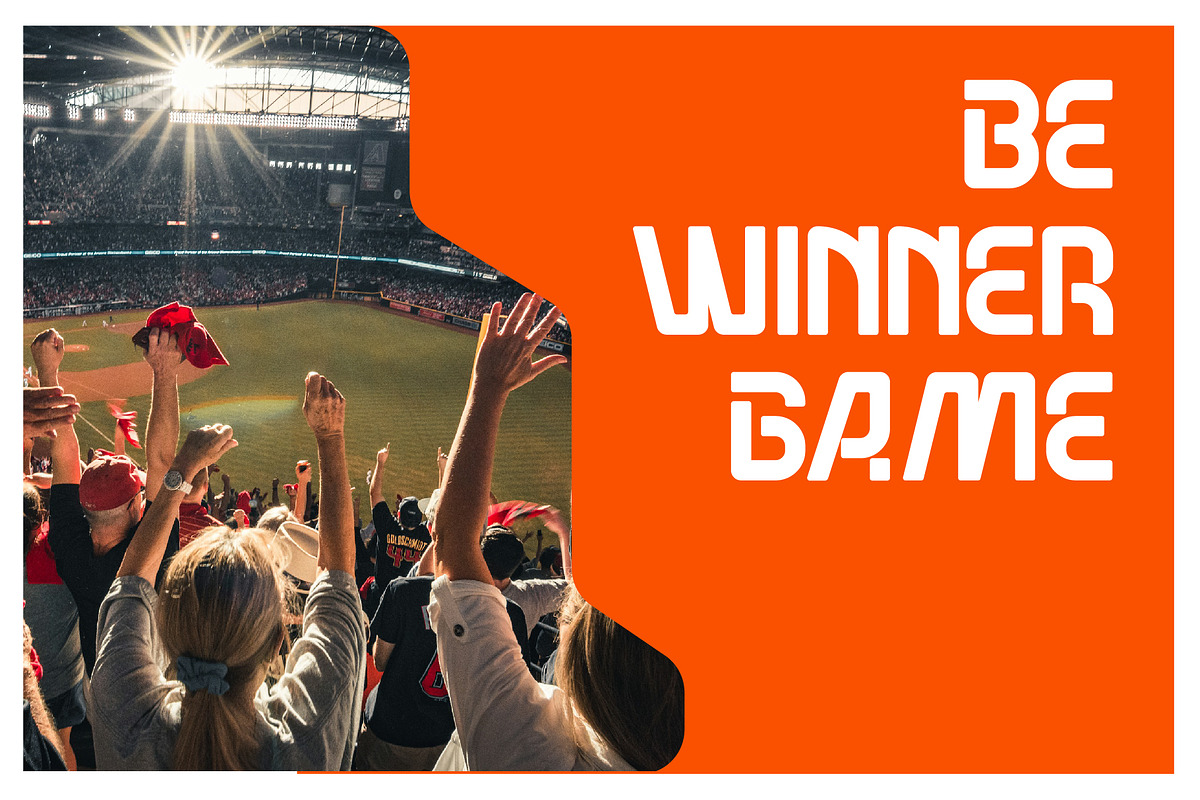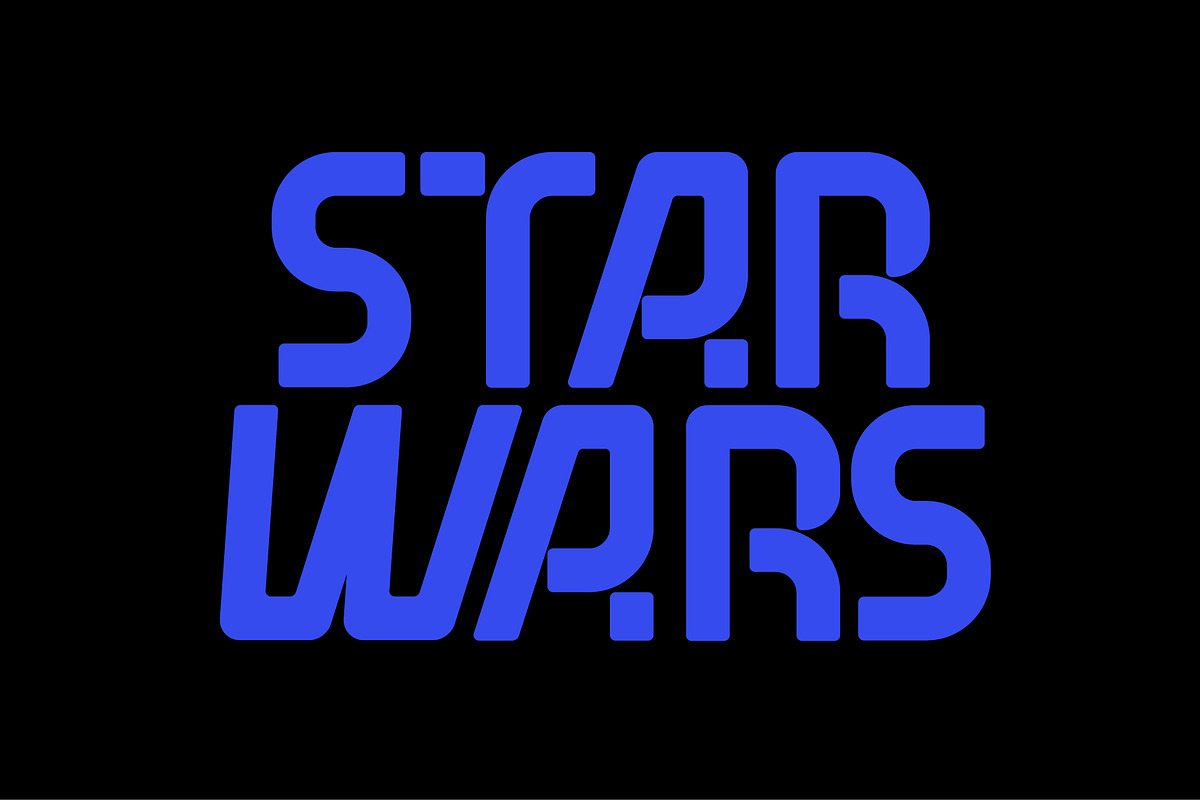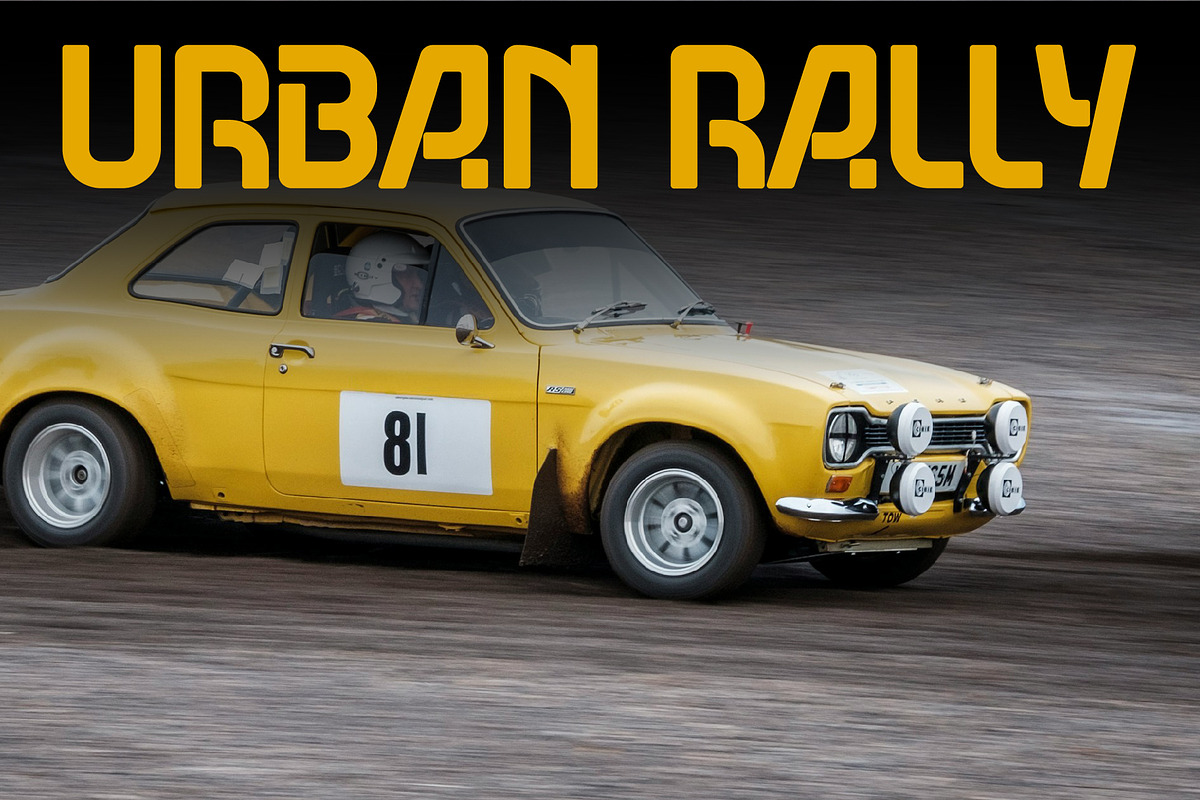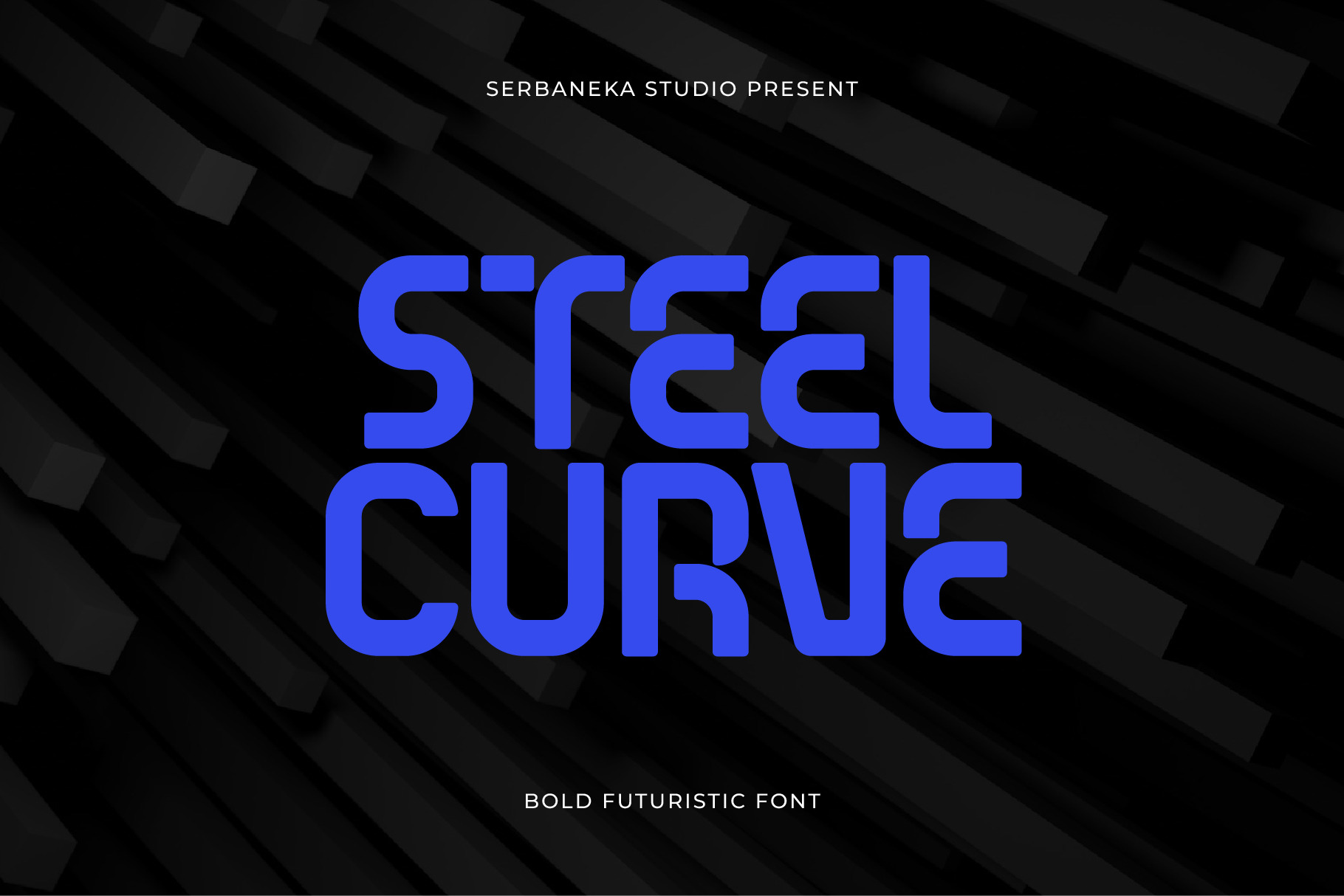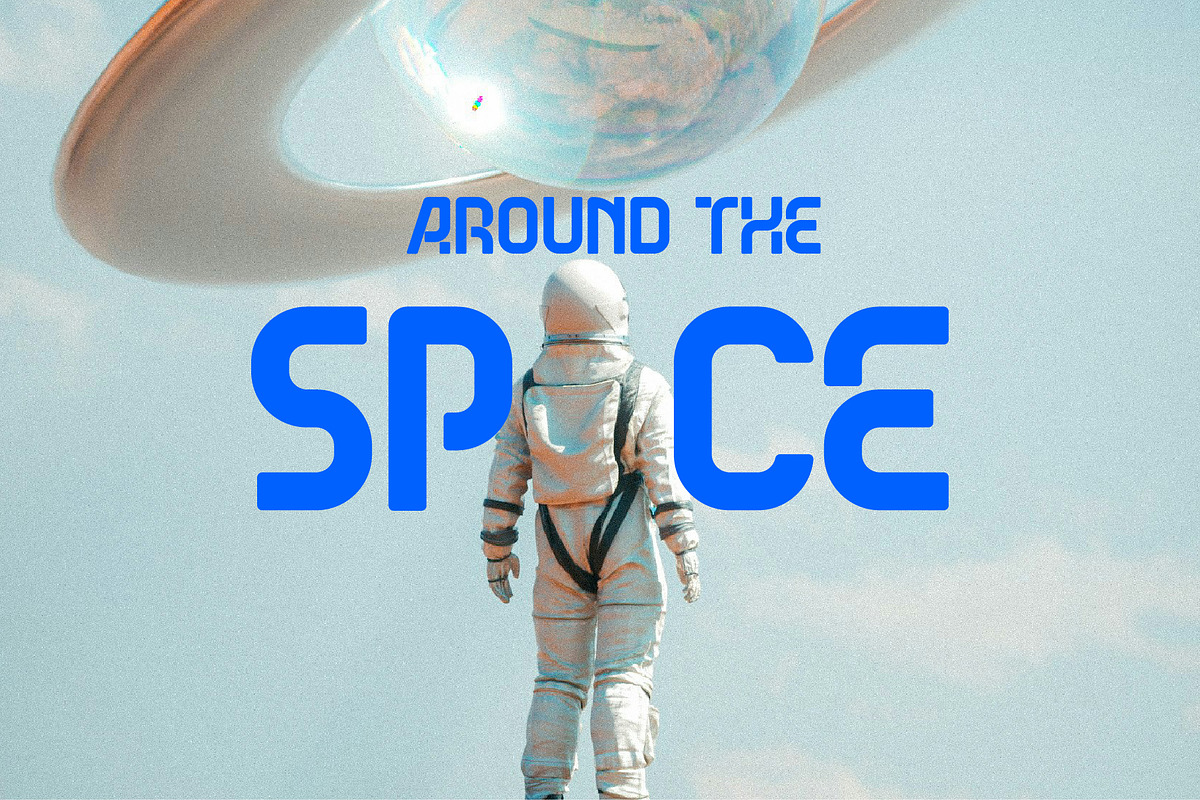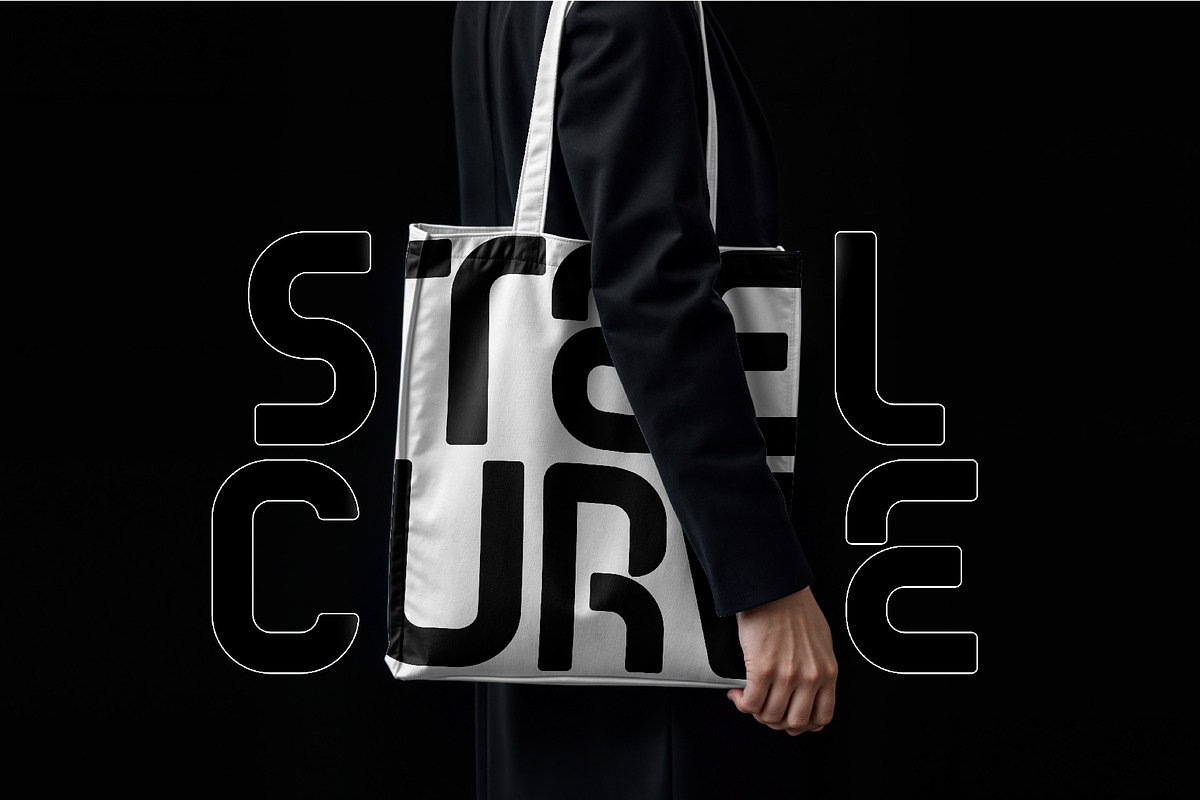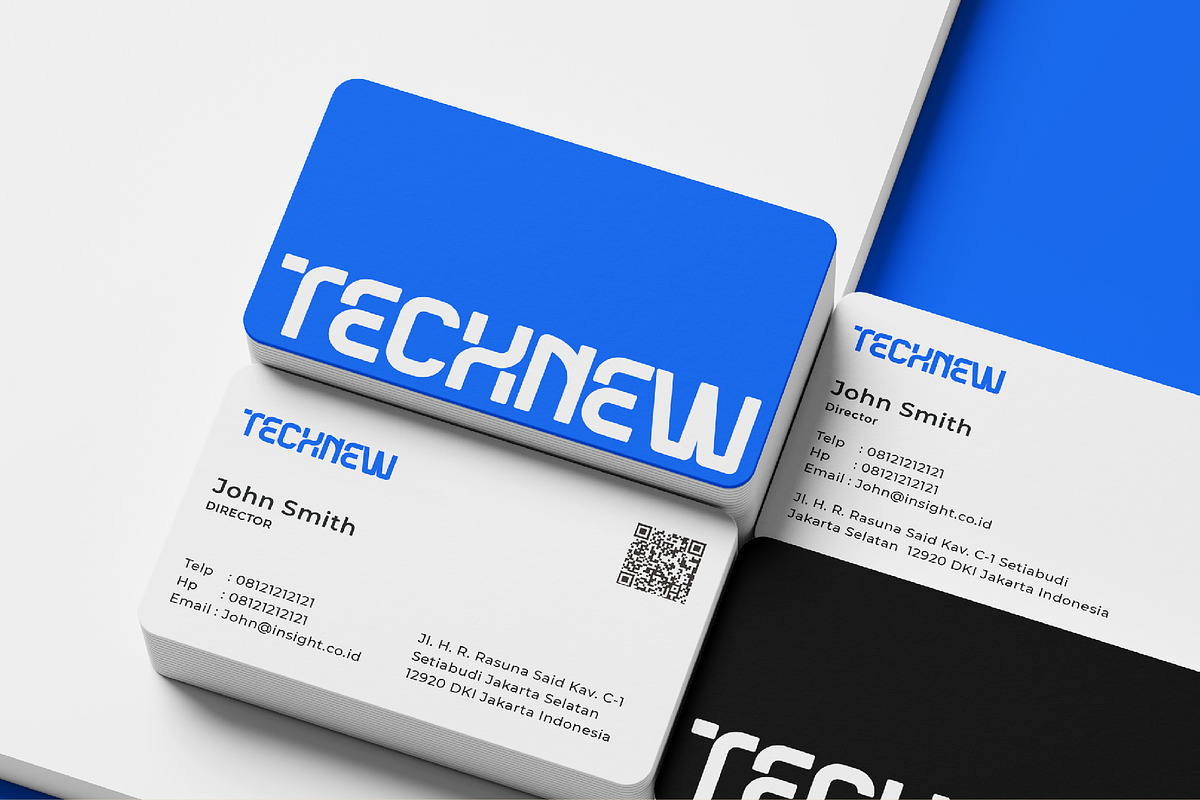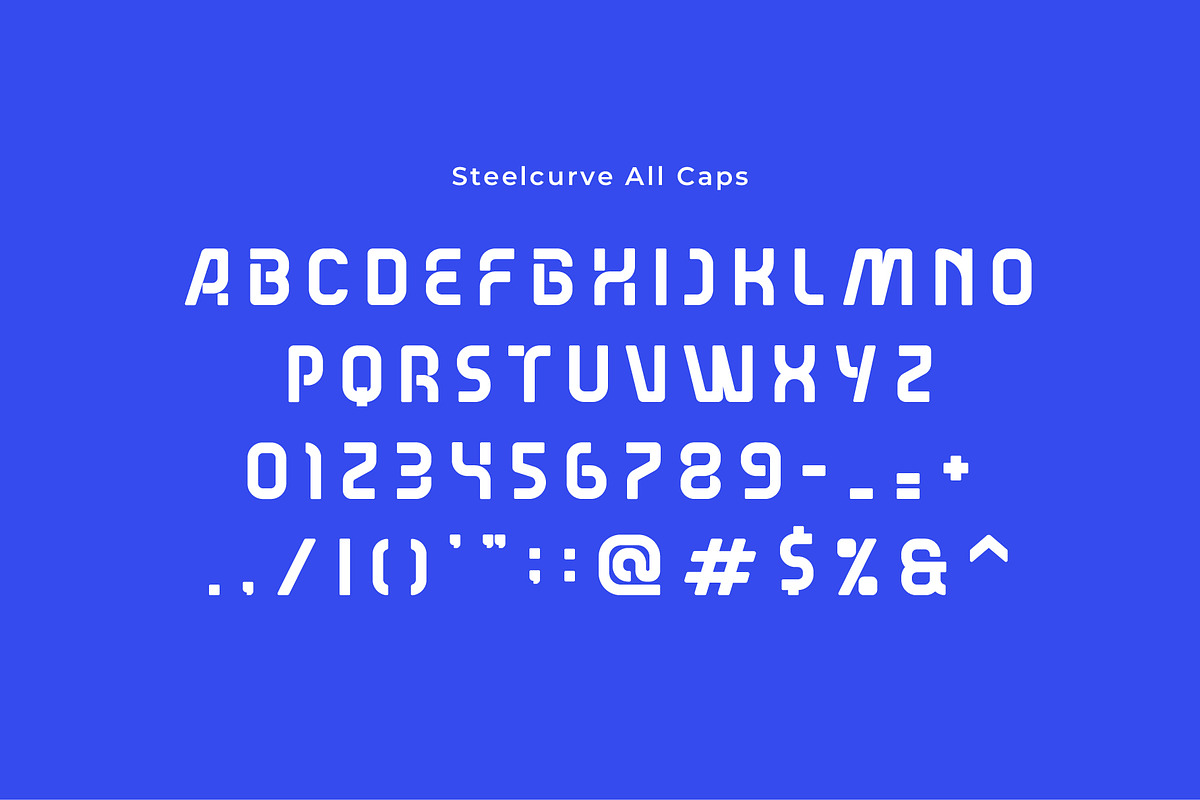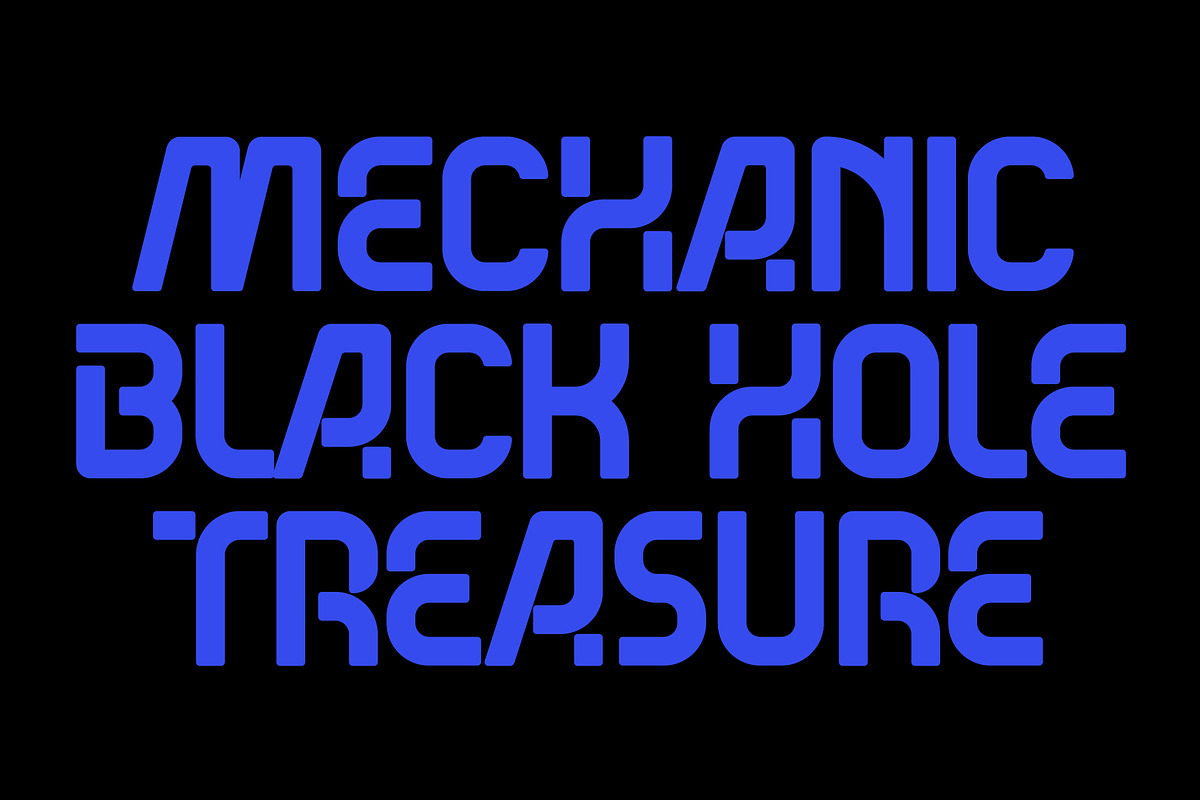
Steelcurve Futuristic Tech Font
Steelcurve is a bold, futuristic, all-caps display font built for impact. Featuring smooth steel-like curves, geometric construction, and a modern techno style, this typeface delivers a strong, high-energy presence in every design.
Perfect for sports branding, racing themes, gaming titles, technology projects, posters, logos, esports, headlines, and bold promotional graphics. Its unique curved cuts and dynamic letterforms create a fast, powerful, and contemporary look.
Make your designs stand out with a sharp, high-performance typographic edge using Steelcurve.